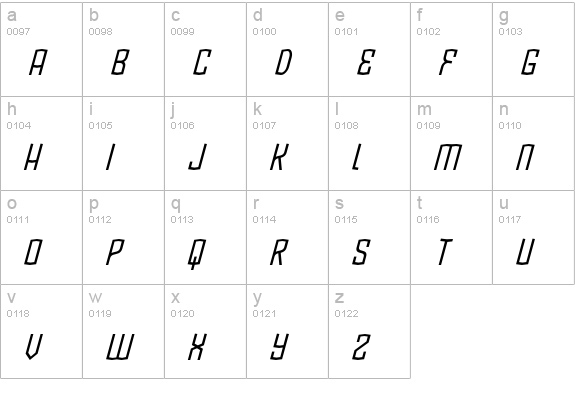
BlamDude BB Italic Font Details
BlamDude BB Italic is a distinctive, italic variant in the BlamDude typeface family \xE2\x80\x94 well suited to design and typography projects.
BlamDude BB Italic font is a sleek and modern typeface designed to make a bold statement. Its italic style adds a touch of elegance and sophistication to any design project. The sharp angles and clean lines give this font a contemporary edge, perfect for grabbing attention and standing out from the crowd. The best part about BlamDude BB Italic font is that it is completely free to download! You can easily access this stylish typeface at FontsMarket.com, making it a valuable addition to your font collection without breaking the bank. Whether you're working on a branding project, website design, or any other creative endeavor, BlamDude BB Italic font is sure to elevate your work with its unique flair and versatility. Download it today and let your creativity shine with this eye-catching font!